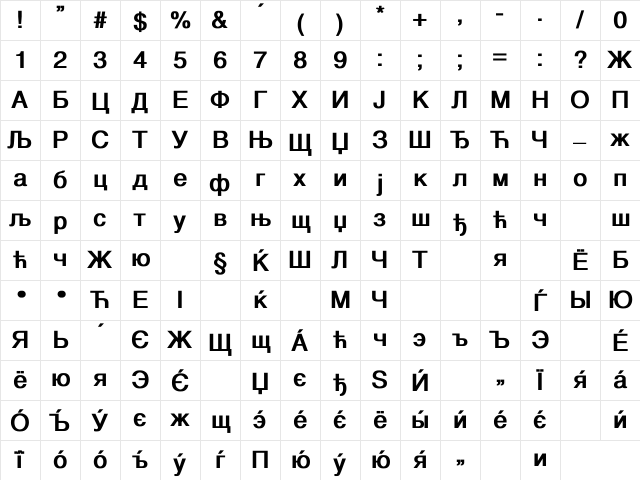
Helv Cirilica Bold Free Font
Helv Cirilica Bold
Design Context for Helv Cirilica
Helv Cirilica is a composed and adaptable typeface that performs quietly and consistently across a wide range of design contexts. Its bold stroke weight gives it real presence on the page.
Pro Tip: Use Helv Cirilica in both headline and body roles to test its range before committing to a single application.